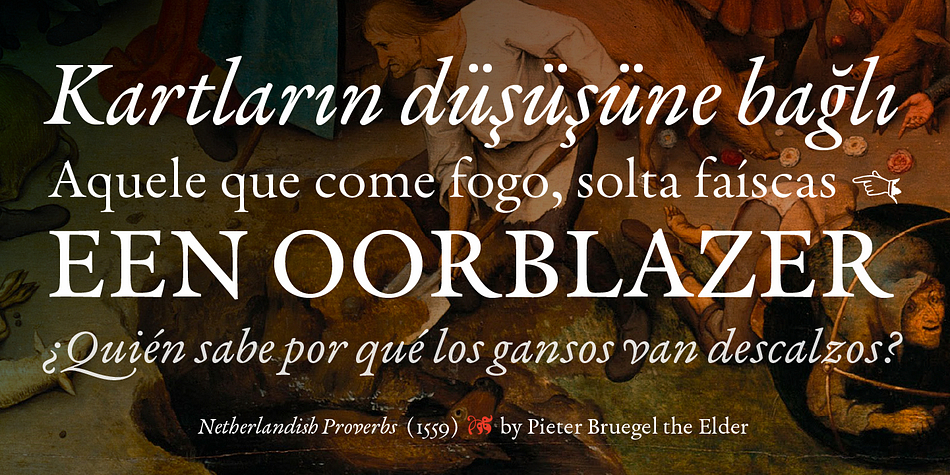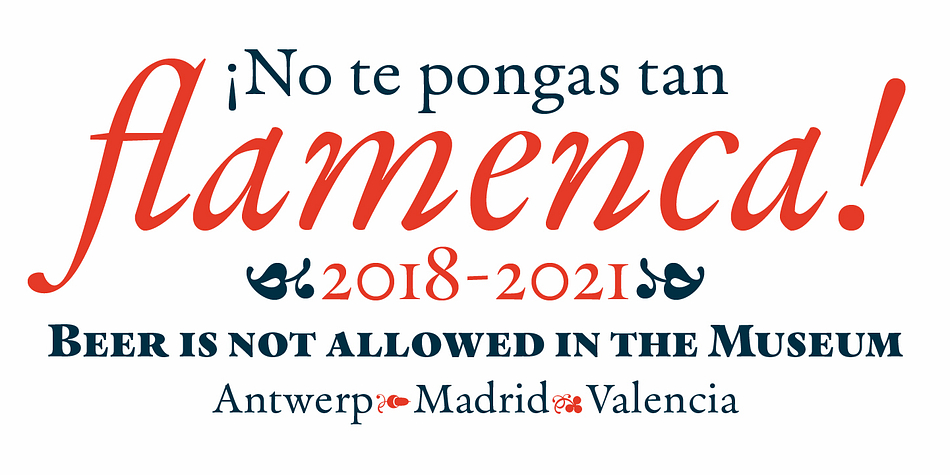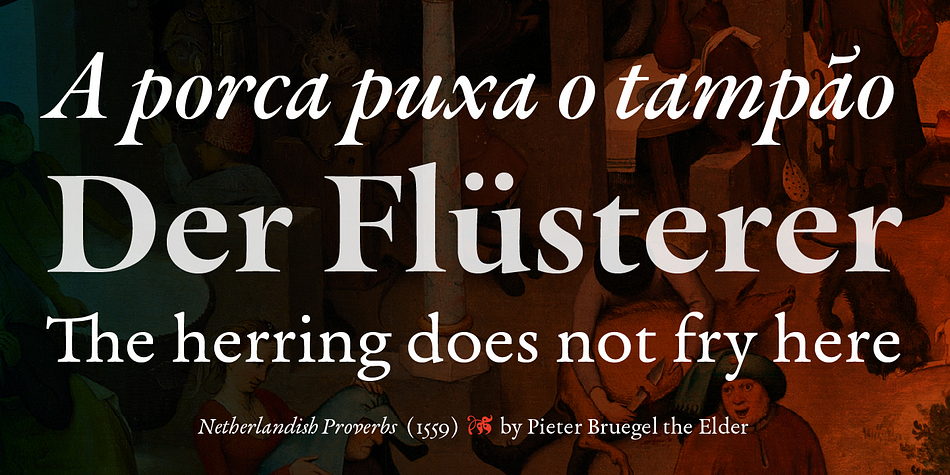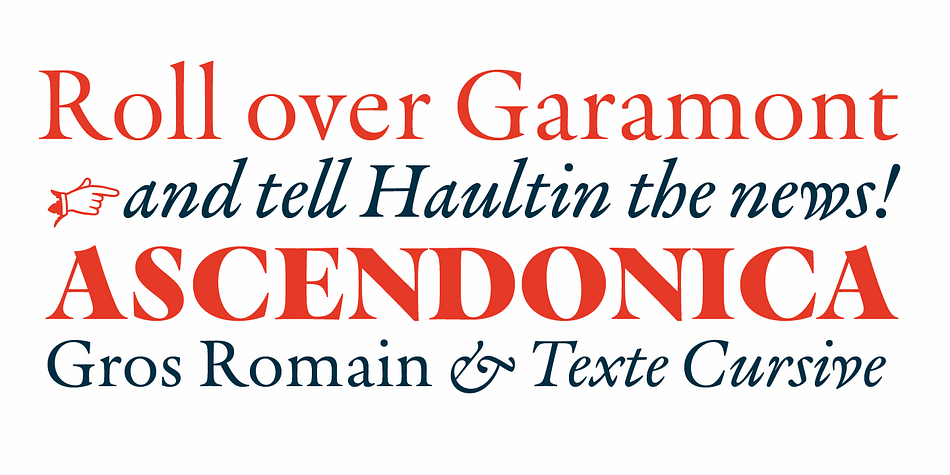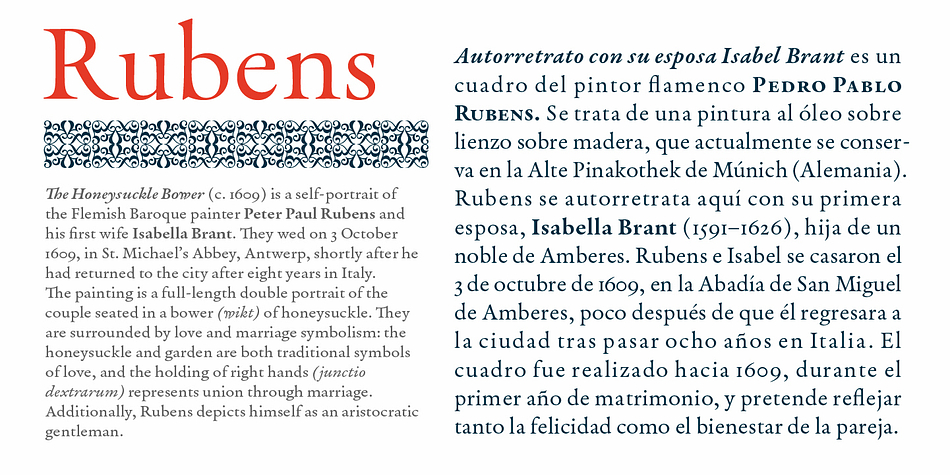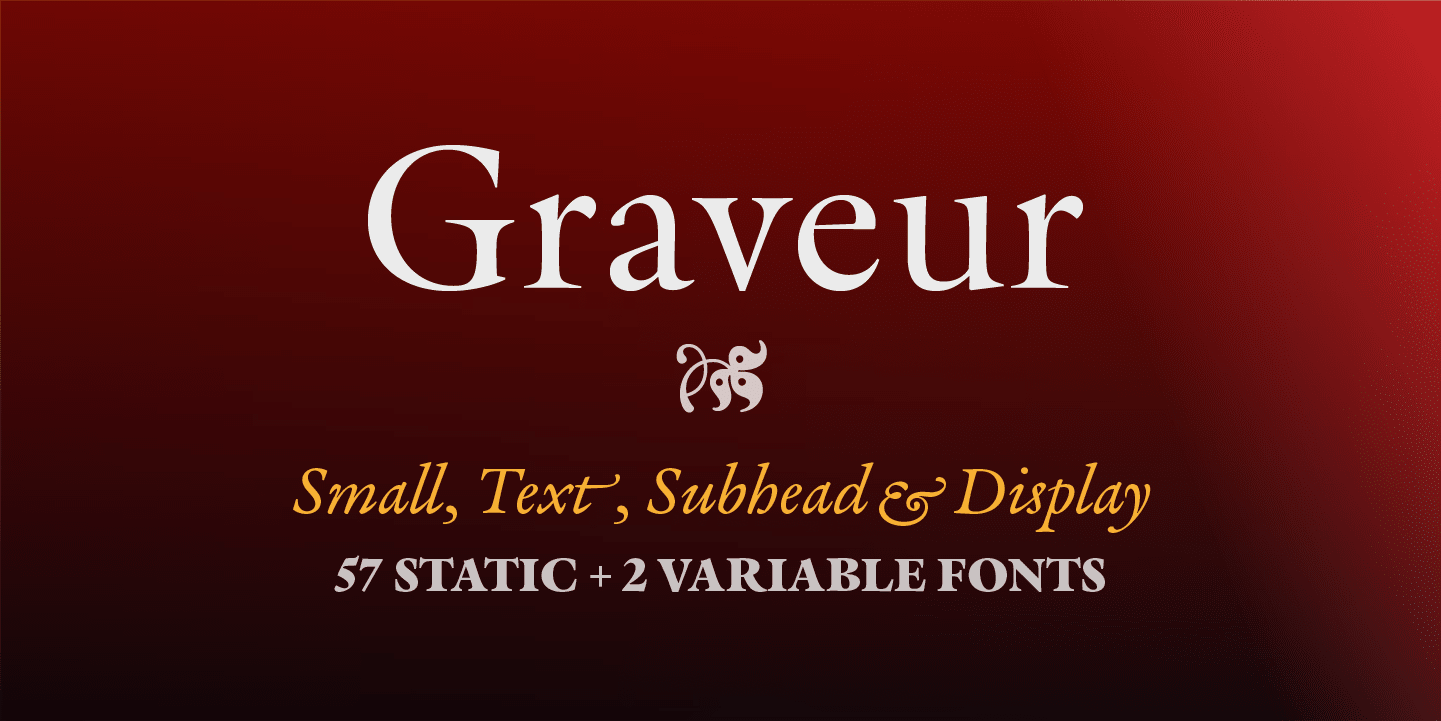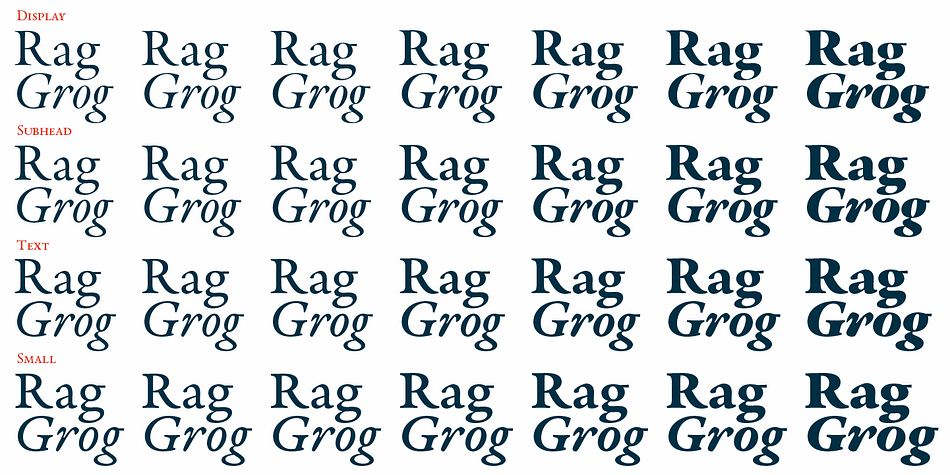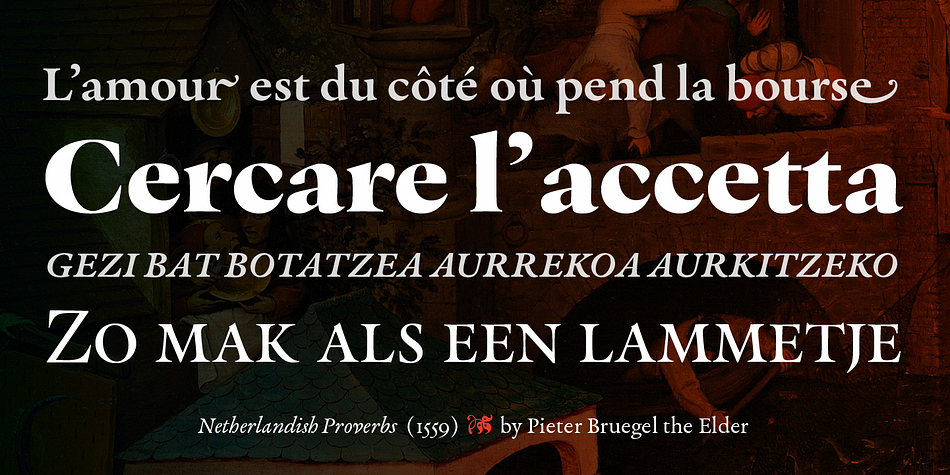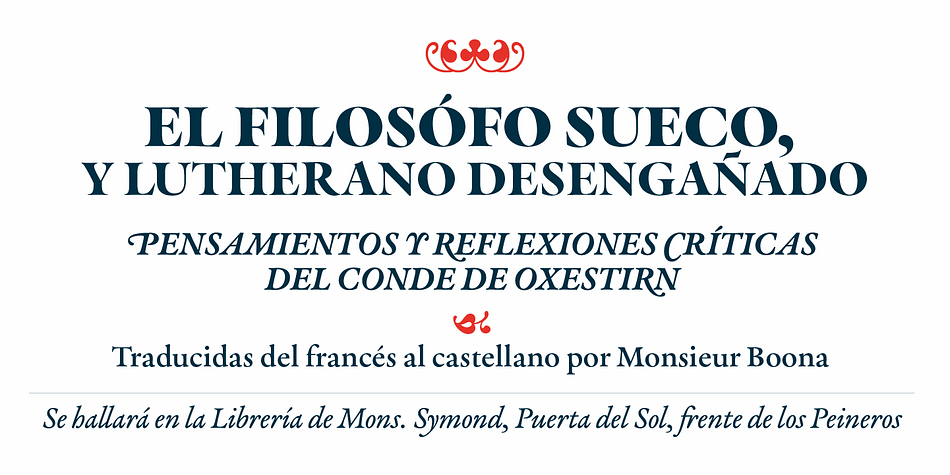
Graveur
Designed by Juanjo López, Graveur is a serif and dingbat font family. This typeface has fifty-nine styles and was published by Huy!Fonts.
Graveur is a type system with Display, Subhead and Small styles.
Graveur is a Renaissance text face based in the work of the French punchcutter Robert Granjon (1513-1589). Working on original artifacts kept in Museum Plantin-Moretus in Antwerp, observation of his punches, matrices, and printed materials resulted in a extensive type family that tries to capture the overall style of Granjon rather than simply being a slavish copy of a particular source.
Started as my project at Expert Class in Type Design in Antwerp, Graveur has grown to become a typeface with four optical sizes and seven weights, plus italics and an ornaments font. With a huge character set and heavy use of OpenType features, Graveur will fit any of your Renaissance person needs.